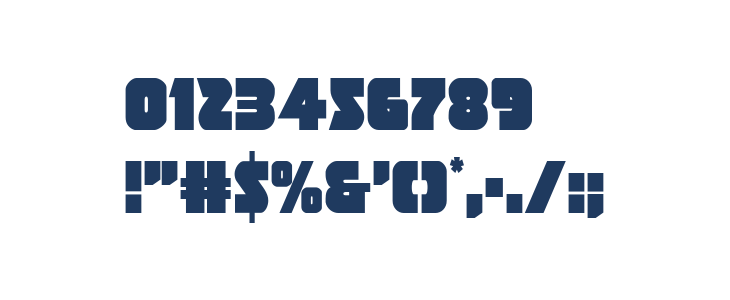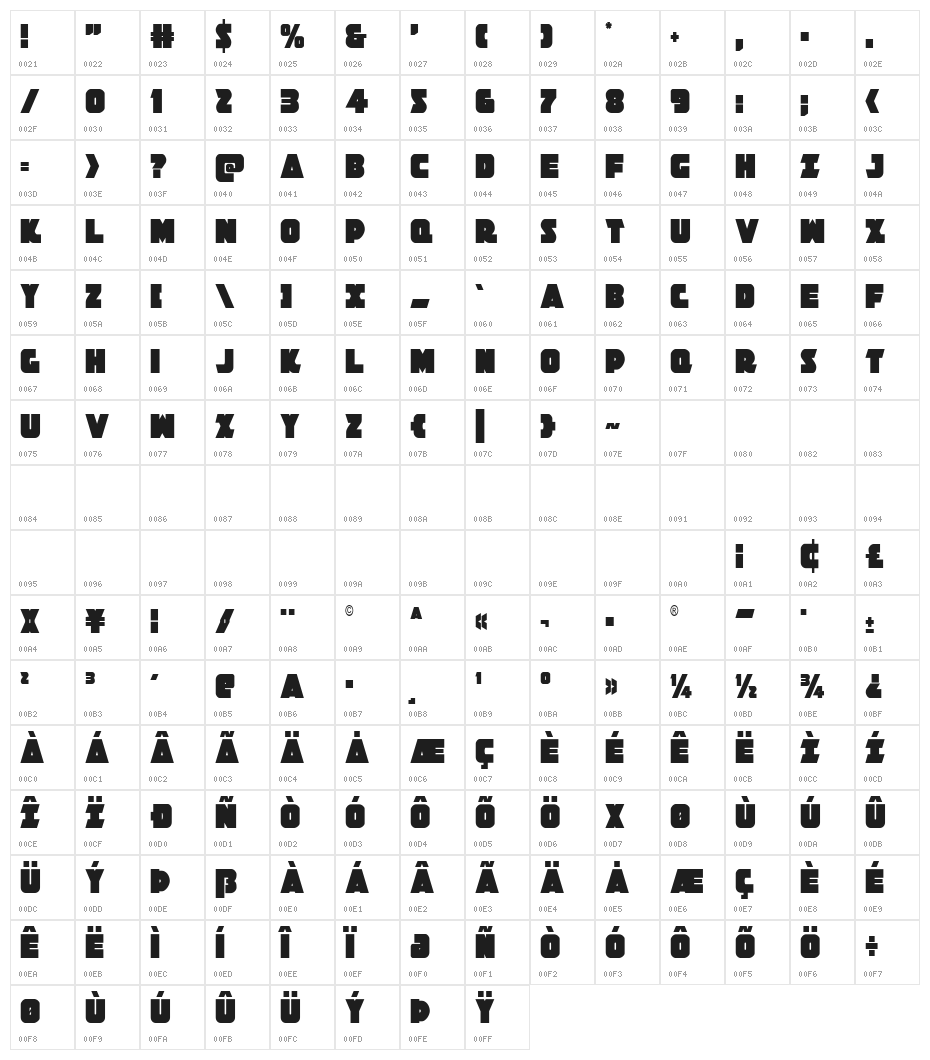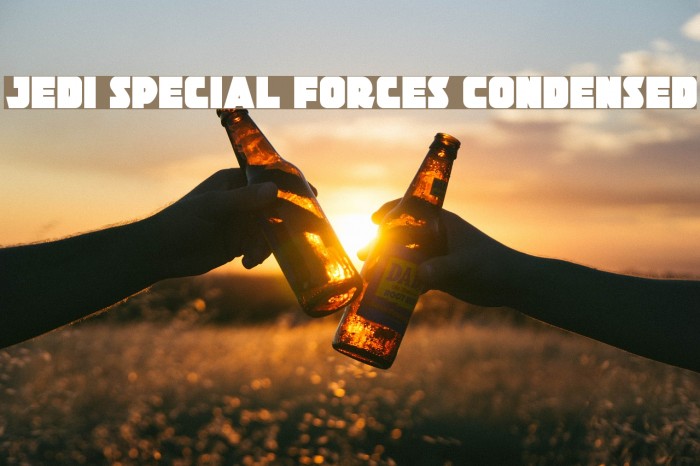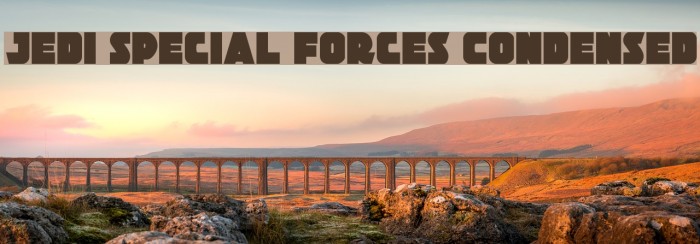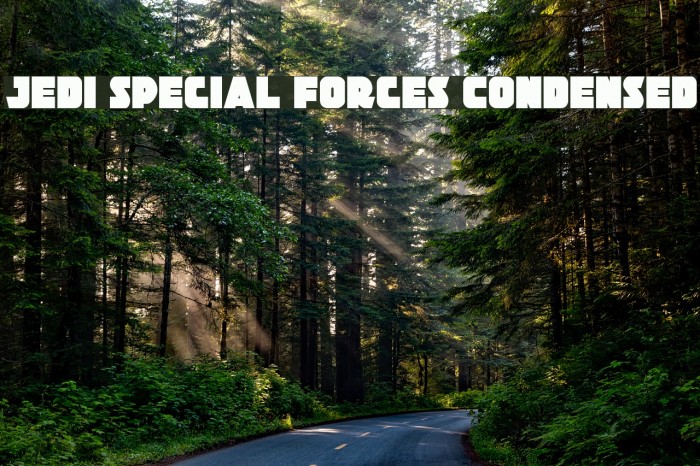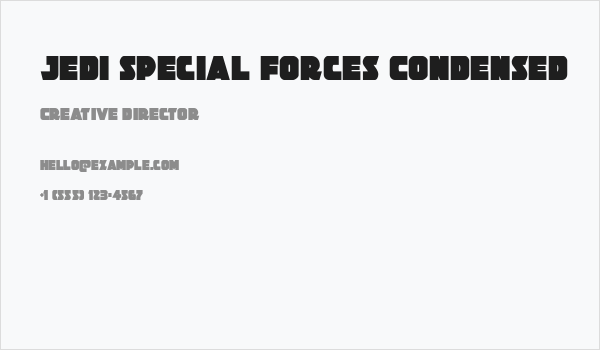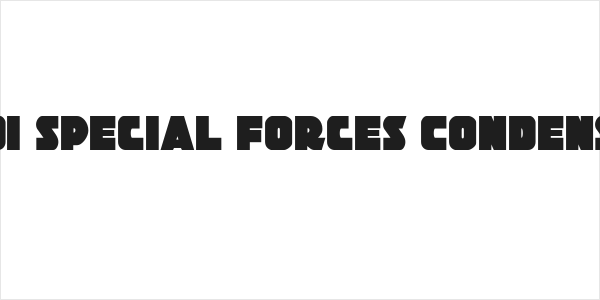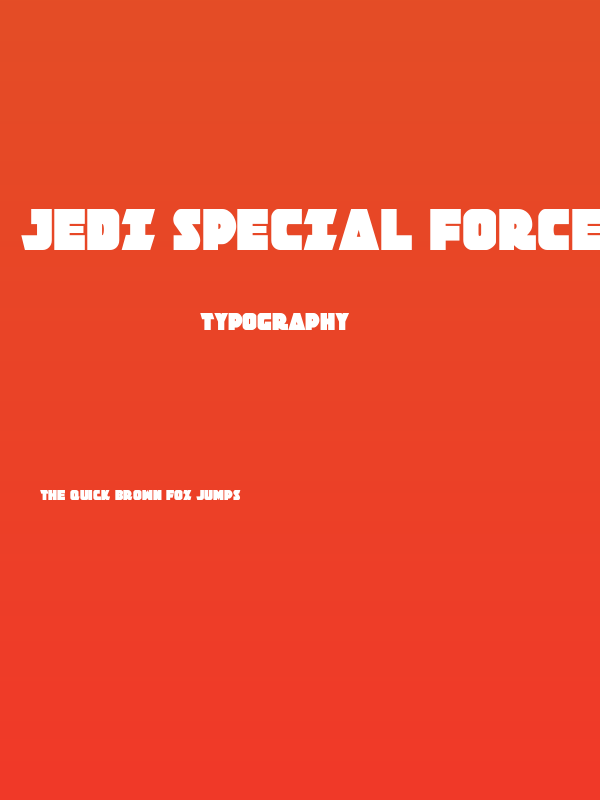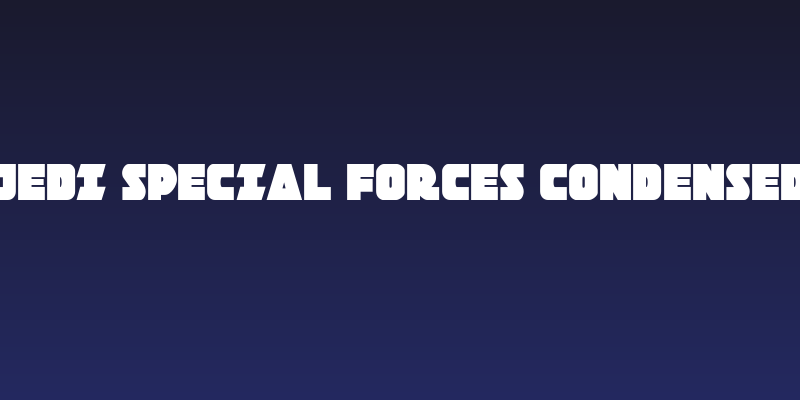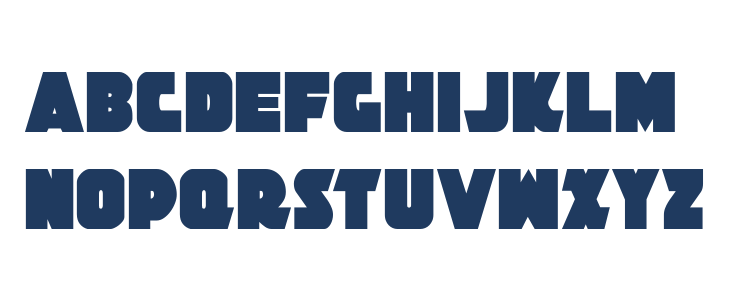
Jedi Special Forces Condensed Font
Jedi Special Forces Condensed Description
This font features a bold and striking design with a futuristic and military-inspired aesthetic. The characters are heavily stylized with sharp angles and geometric shapes, giving it a strong and commanding presence. The uppercase letters are particularly prominent, with a condensed form that enhances their impact. The numbers and special characters maintain the same boldness, ensuring consistency across all glyphs. This font is ideal for projects that require a strong visual impact and a sense of modernity and strength.
| Proposed Projects | Ideal for sci-fi movie posters, video game titles, military-themed branding, and bold headlines. |